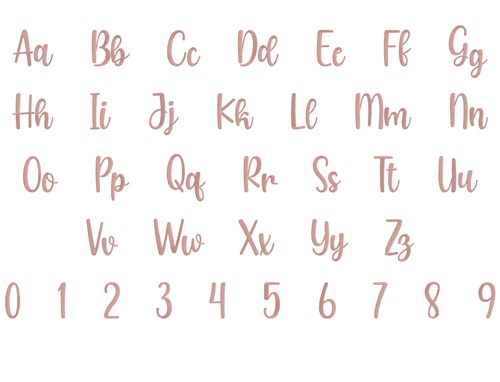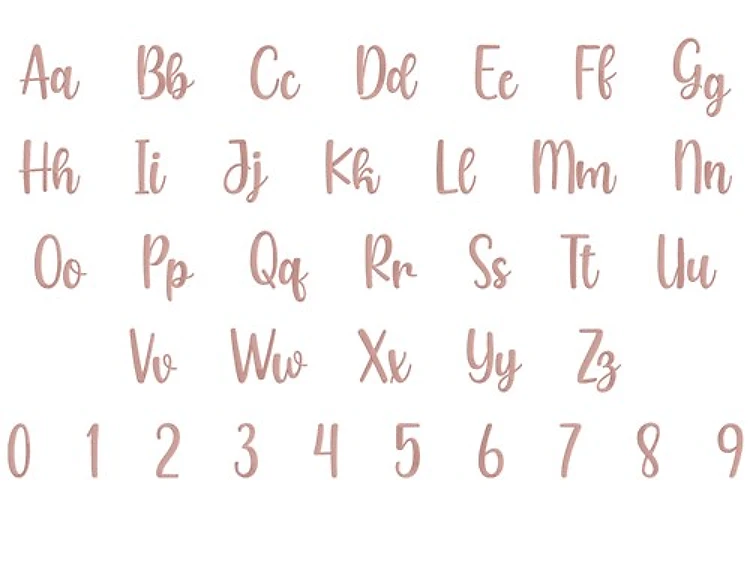
Satin Stripes is happy to present Rustica Emrbilliance Embroidery Font - Handwritten Script Lettering - BX font machine embroidery font which has Script style machine embroidery font with flowing, connected letters, ideal for casual projects like personalized bags. Available in BX font and Embrilliance formats. included. If you would like to view more embroidery fonts and alphabets please search our embroidery fonts page.
Rustica Emrbilliance Embroidery Font - Handwritten Script Lettering - BX font